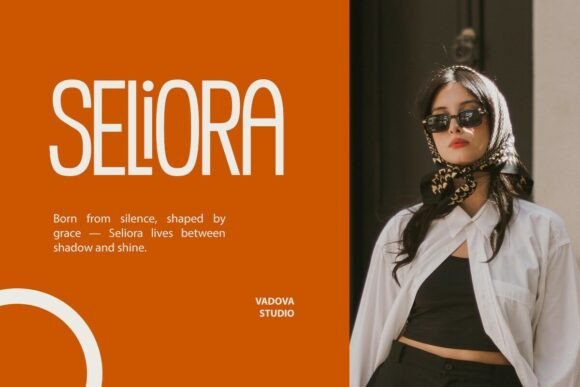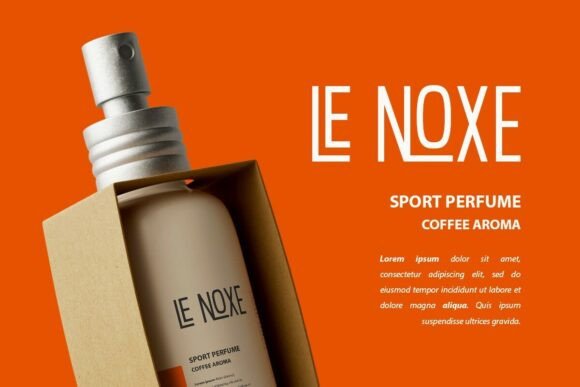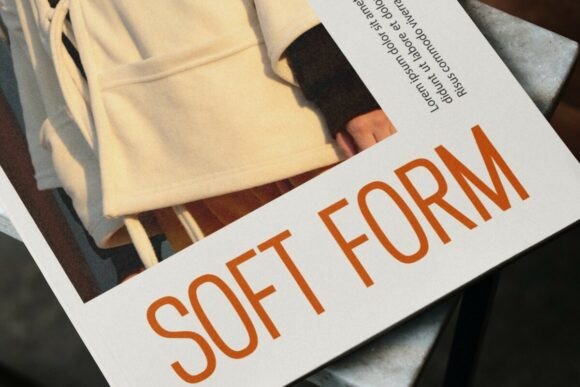
Introduction to Leanova Font
Have you ever been working on a creative project, staring at a blank page, and suddenly a spark of inspiration hits? That’s exactly what happened when designers discovered the Leanova Font – a bold and condensed sans serif typeface that adds a modern edge to any design. With its clean lines and tall structure, it’s the perfect solution for making a statement.
The Leanova Font is a game-changer for designers, offering a high-quality design resource that can be easily downloaded and integrated into any project. Its versatility shines through in its ability to work seamlessly with both minimalist and bold contemporary visuals, creating a sleek and professional tone that’s hard to resist. Whether you’re working on a fashion campaign, packaging, or editorial layout, the Leanova Font is sure to bring your design to life.
Key Features of Leanova Font
- High-quality vector font with a transparent background, ideal for creative projects.
- Designed with a clean and modern aesthetic, suitable for a wide range of applications.
- Includes multiple font styles and sizes, allowing for customization in creative projects.
- Resolution-independent design, ensuring crisp and clear display at any resolution.
- Supports scalable vector graphics, making it perfect for use in various design software and applications.
Honest Review: Leanova Font
I recently stumbled upon the Leanova Font while searching for a high-quality design resource for a creative project. I was immediately drawn to its sleek and modern aesthetic, making it a perfect fit for my needs.
- What works well: ✨ The font is highly legible, even at small font sizes, and the transparent background makes it easy to use in various design contexts.
- What works well: ✨ The font is highly customizable, allowing me to adjust the font size, color, and style to suit my design needs.
However, I did encounter a few limitations with the Leanova Font:
- ⚠️ The font may not be suitable for use in headings or titles, as it can become too busy and overwhelming.
Overall, I’m impressed with the Leanova Font and would recommend it to designers looking for a high-quality, free design resource. With a little creativity and experimentation, I’m sure you’ll find it to be a valuable addition to your design toolkit.
The Leanova Font is a high-quality design resource ideal for creative projects. It features a transparent background, making it perfect for overlaying on images or backgrounds.
Common Use Cases for Leanova Font
The Leanova Font is ideal for creative projects such as infographics, brochures, and social media graphics. You can also use it for business cards, resumes, and other professional documents.